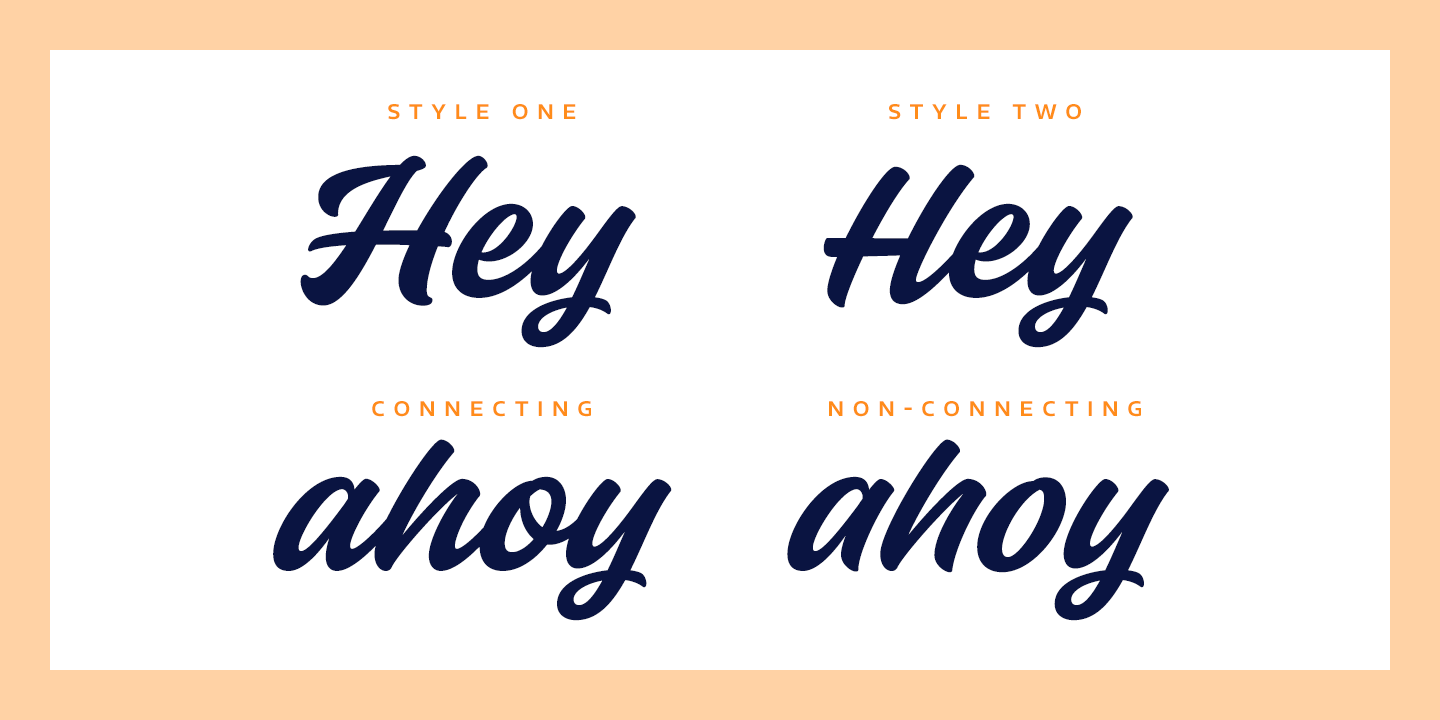
About the Fineday Font
About Fineday Font Family Fineday is a clean and lining brush script, It is available with two different styles of uppercases: Style One and Style Two, Style One is swashy and decorative, Style Two is more plain and straightforward, Fineday is also available with connecting and non-connecting lowercases, All the Fineday versions have fancy alternate characters like ending swashes, tales and swashy ascenders
The family has an extended character set supporting most Central European and Eastern European languages, Publisher: MelvastypeFoundry: MelvastypeDesign Owner: MelvastypeMyFonts debut: Jul 6, 2018 Fineday